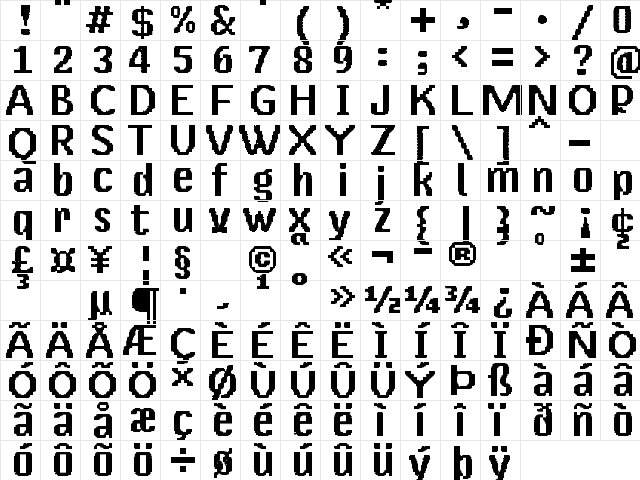
UF Mana-13alt Bold
| Foundry | Ultrafonts |
| Designer | Hrant Papazian |
Design Context for UF Mana-13alt Typeface
UF Mana-13alt takes a measured approach to typography — its balanced proportions and neutral character make it a reliable workhorse for both digital and print work. The heavy weight commands attention and anchors typographic hierarchies.